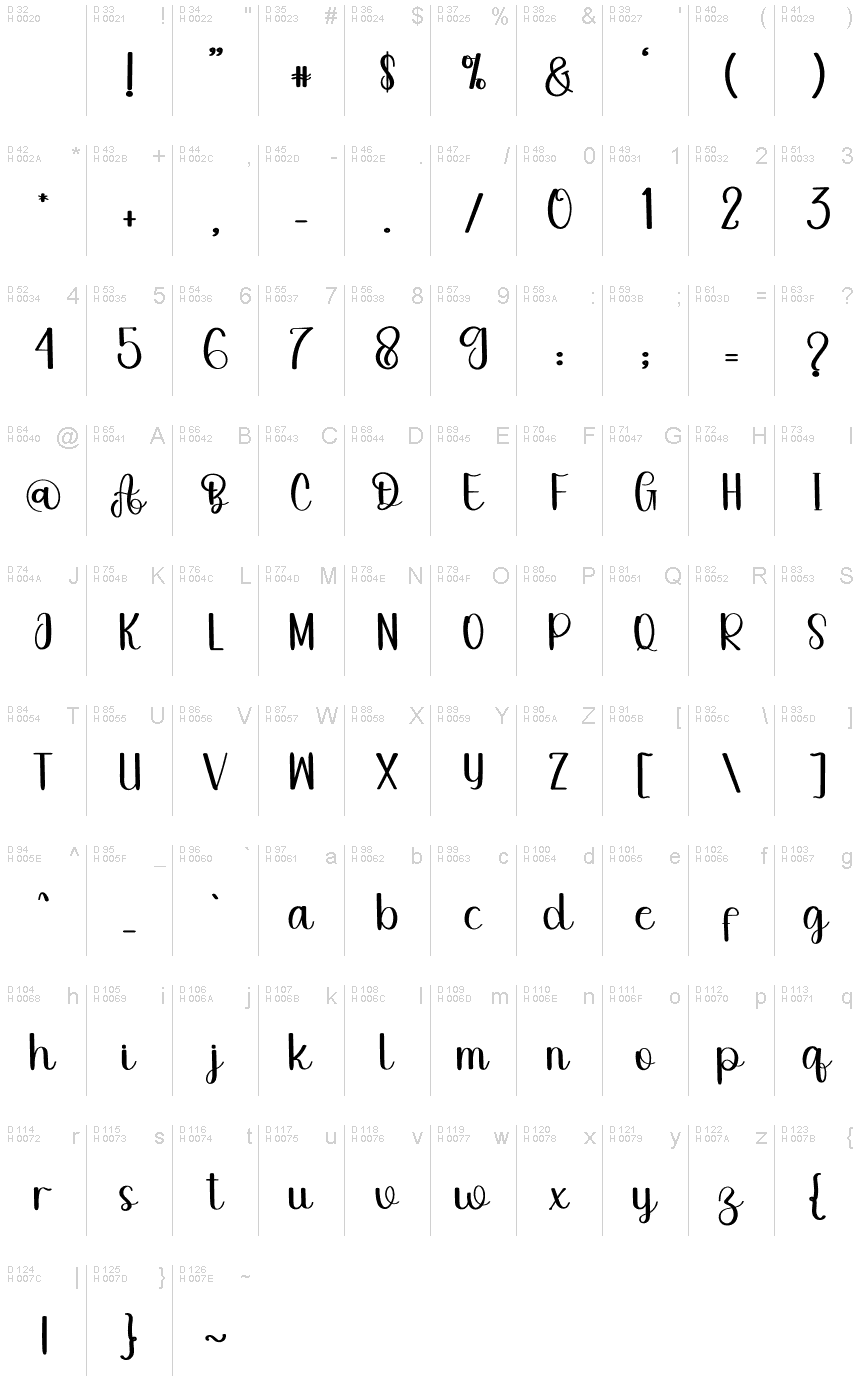
Happy To School
Happy To School is a light weight, cute handwritten font designed by FreshtypeINK. It is suitable for creating fun and joyful projects like handwriting cards, scrapbooking, and logo designs.